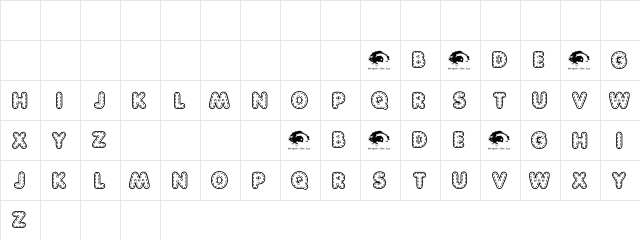
QuiltedTrial Regular
Design Context for QuiltedTrial Typeface
QuiltedTrial is a composed and adaptable typeface that performs quietly and consistently across a wide range of design contexts.